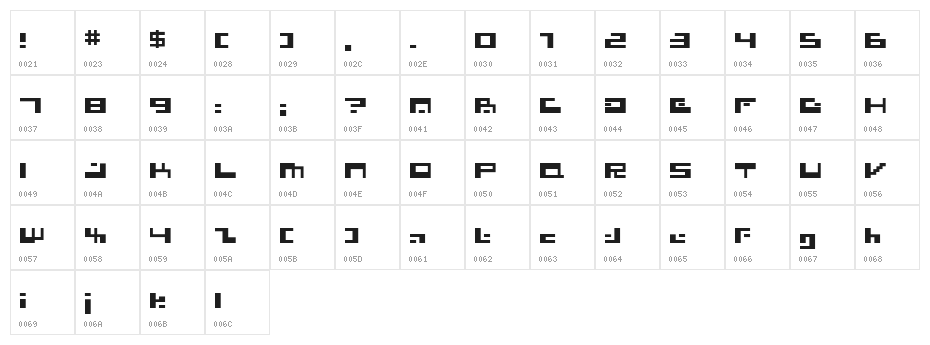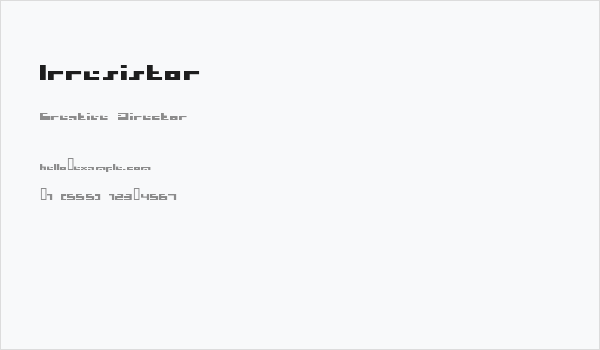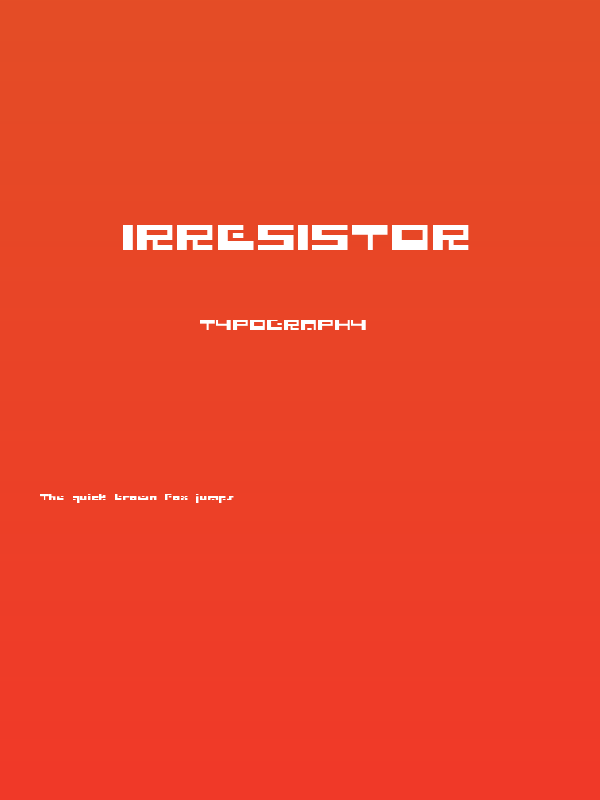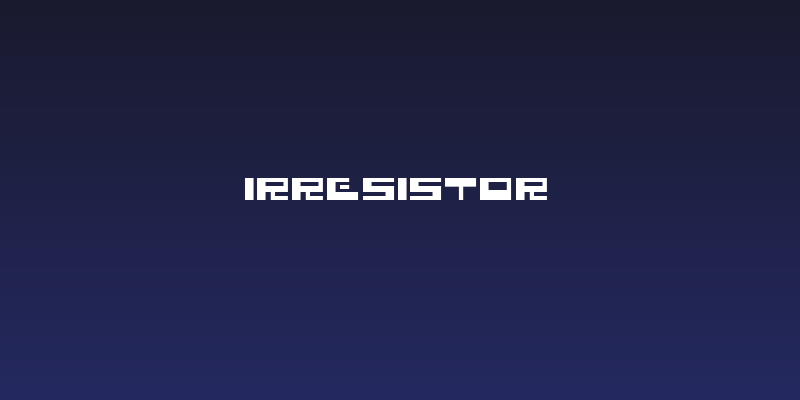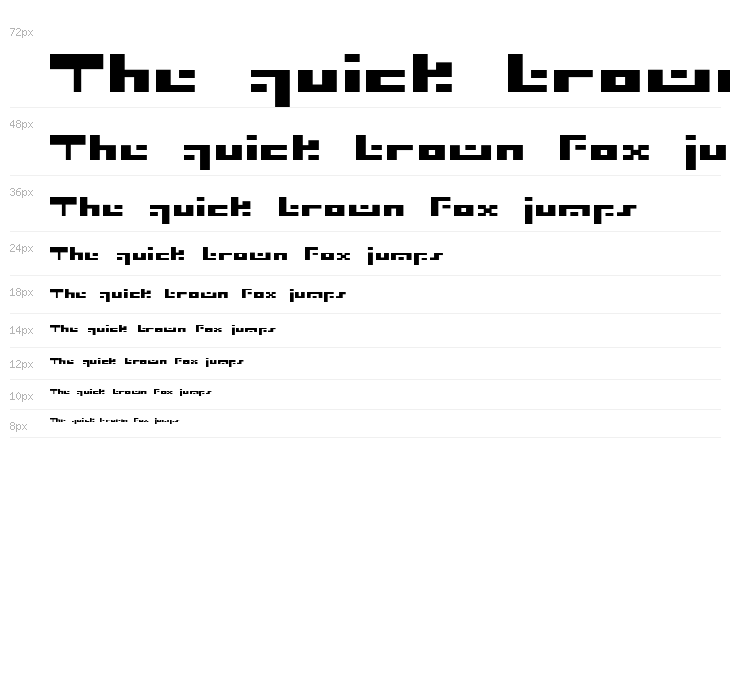
Irresistor Font
Irresistor Description
This font features a bold, geometric design with a distinctly futuristic and digital aesthetic. Each character is constructed with sharp, angular lines and a blocky structure, reminiscent of early computer graphics or pixel art. The uniformity in height and width across characters gives it a monospaced appearance, although it is not strictly monospaced. The uppercase and lowercase letters maintain a consistent style, with minimal differentiation in size, enhancing its modern and tech-oriented look. The numerals and special characters follow the same design principles, ensuring a cohesive visual experience.
Proposed ProjectsIdeal for tech-related branding, video game design, digital art projects, and sci-fi themed posters.